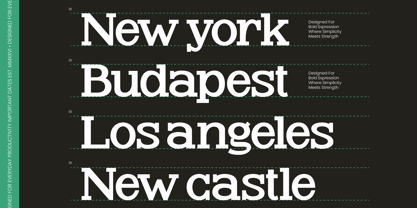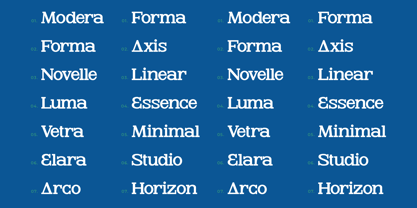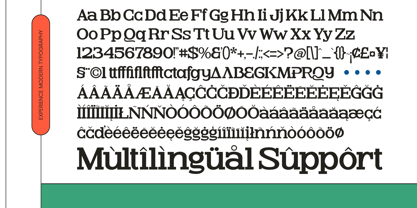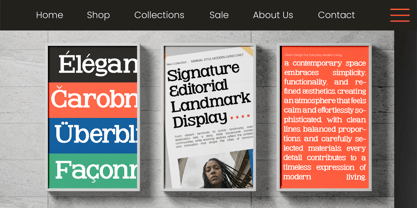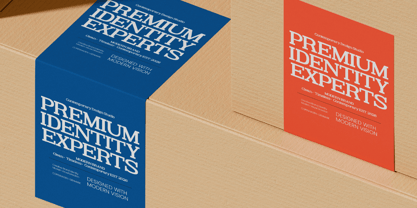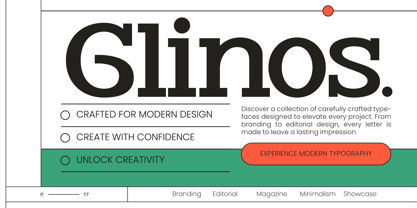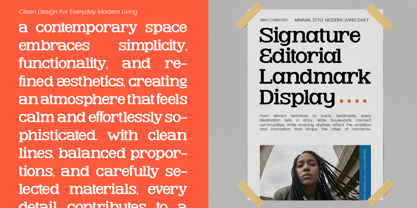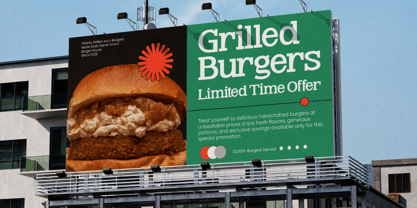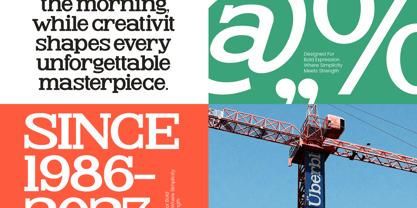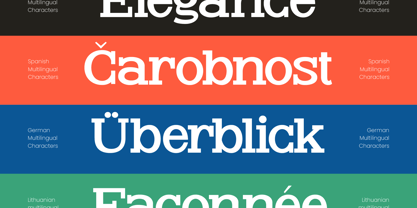
Glinos
Die Schriftfamilie Glinos wurde von Heru Utama Putra entworfen und von Timelesstype Studio veröffentlicht. Glinos enthält 2 Stile und Familienpaketoptionen. Mehr über diese Familie
Glinos captures the essence of contemporary strength, offering a bold visual narrative that commands attention on every page. This modern slab serif is designed to bridge the gap between architectural precision and creative expression.
Drawing inspiration from the sturdy geometry of urban landscapes and industrial craftsmanship, this typeface evokes a sense of permanence and reliability. It feels like a masterclass in structural elegance, where every curve and corner is meticulously balanced.
With its modern serif display qualities and undeniable luxury typography appeal, this font delivers a powerful branding impact. It is an essential high-contrast serif for designers seeking a sophisticated editorial font that refuses to be ignored.